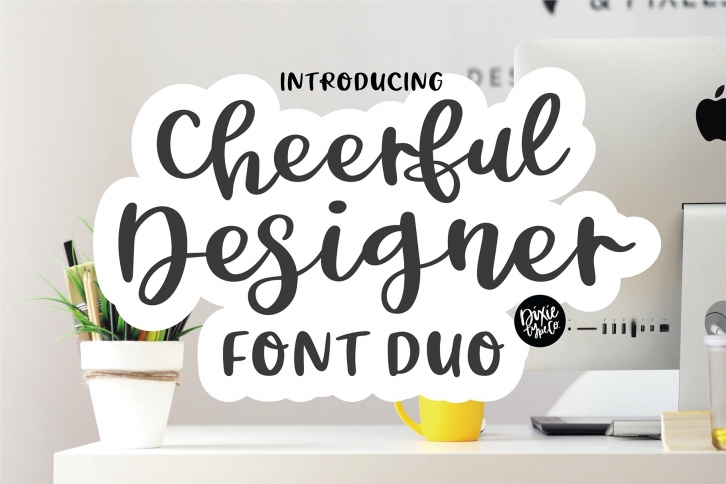
CHEERFUL DESIGNER Script Sans Hand Lettered Duo is a beautiful font that was designed by Dixie Type Co. It's a great choice for designers and creatives who need such a font. It was released on June 3, 2020 and the file size is 14.81 MB. CHEERFUL DESIGNER Script Sans Hand Lettered Duo may give a more youthful, expressive and casual look to your project. It is a very beautiful, refined, elegant, and high-quality font.